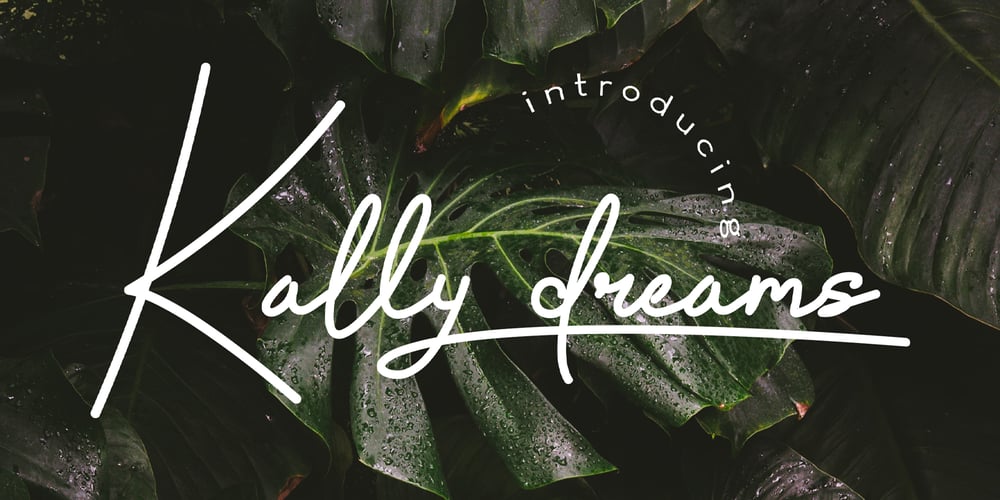
Kally Dreams Font Family was designed by Putu Dody Permana and published by Hishand Studio. Kally Dreams contains 1 styles and family package options. Kally dreams is a beautiful monoline font with signature style that really good for water mark, logotype, advertisement, social media posts, product packaging, clothing design and more.complete with uppercase lowercase ligatures swashes alternates multilingual support